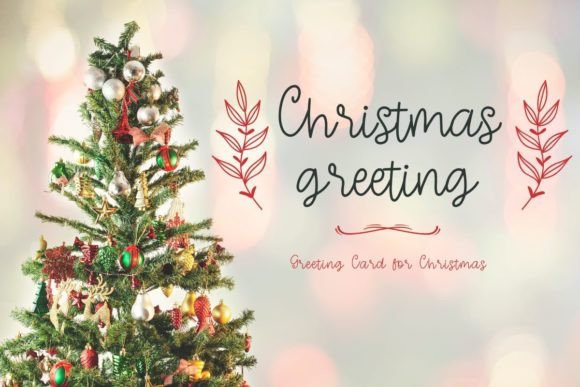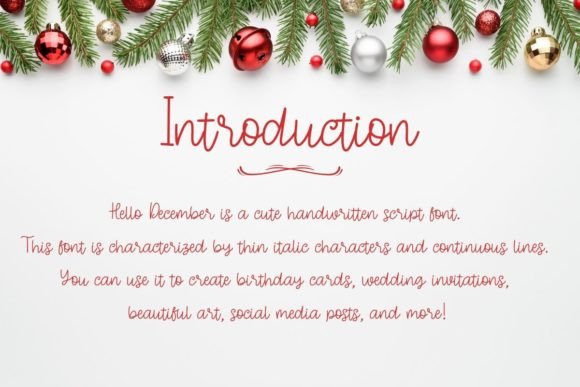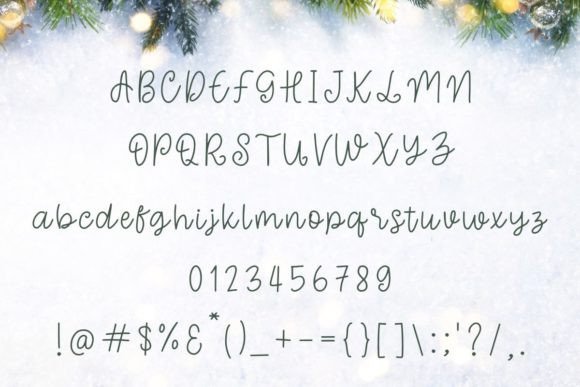
About Hello December Font
Hello December is a cute handwritten script font. This font is characterized by thin and continuous lines. You can use it to create birthday cards, wedding invitations, beautiful art, social media posts, and more!